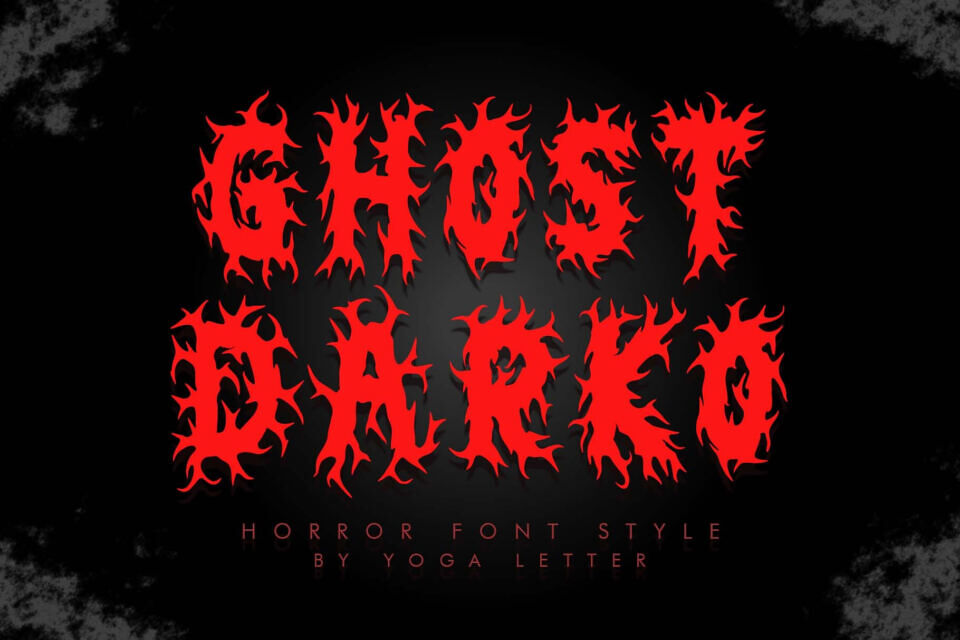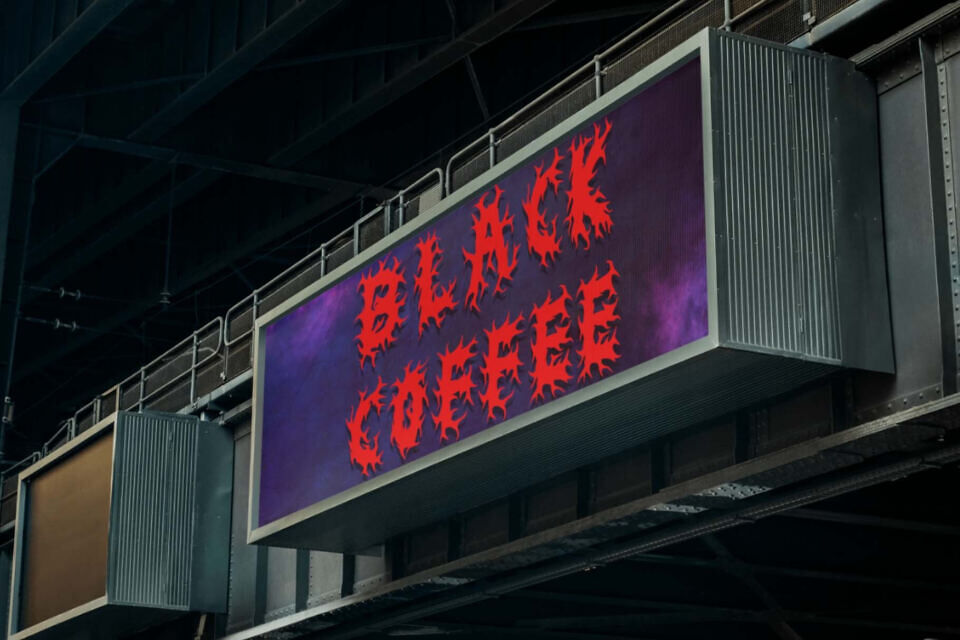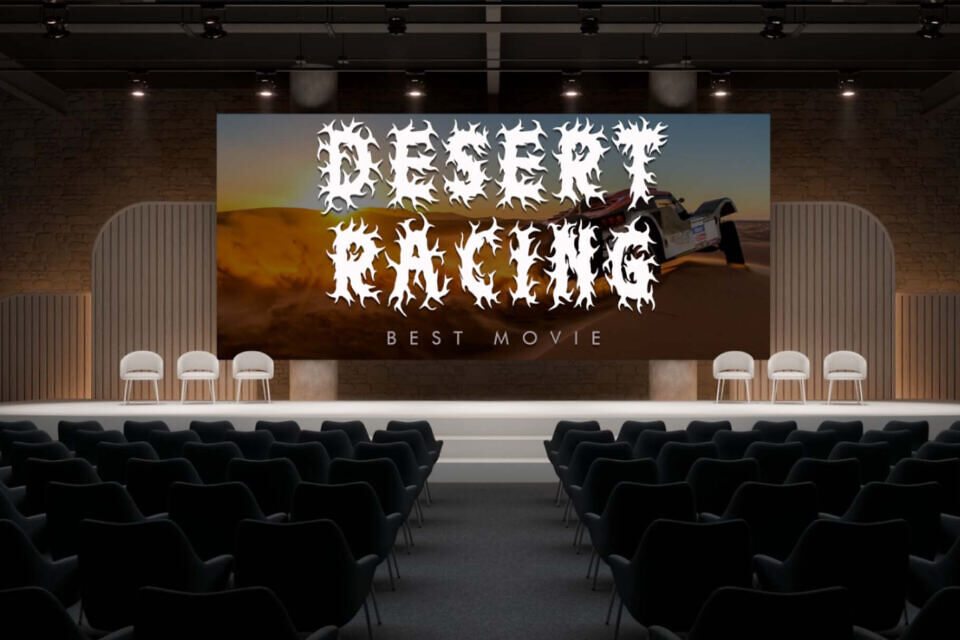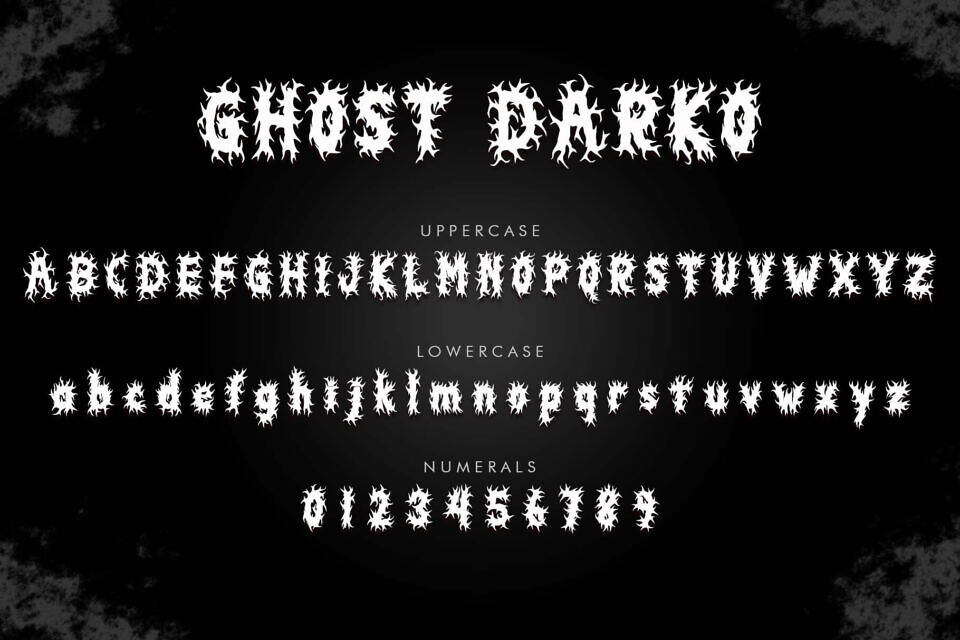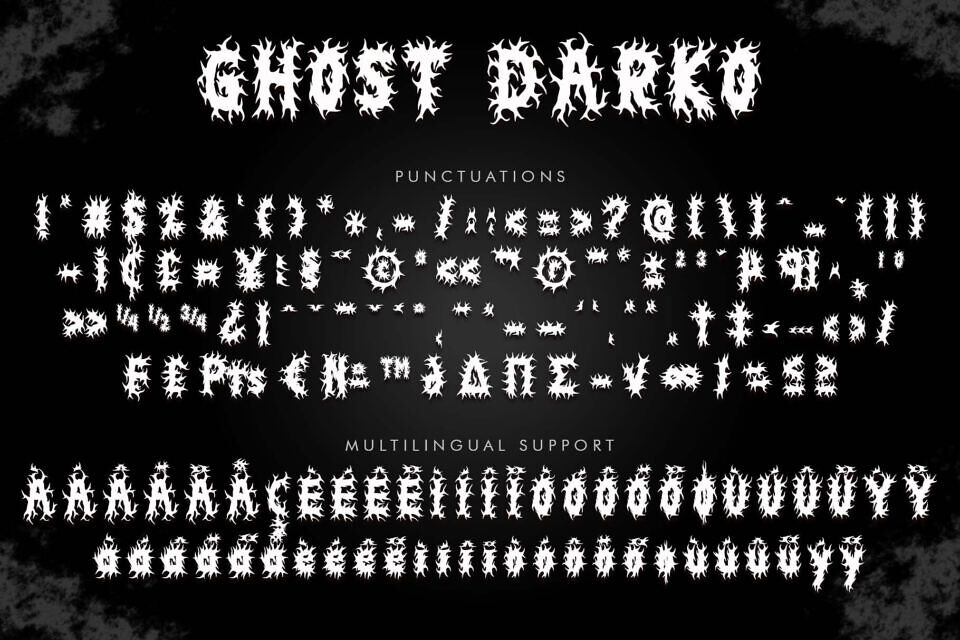
Ghost Darko is a unique and spooky display font. It features uppercase and lowercase letters, numbers, punctuation, and multilingual support. It’s perfect for Halloween, Christmas, book titles, horror movie titles, action movie titles, Procreate, banners, posters, prints, branding, stickers, logos, and more.